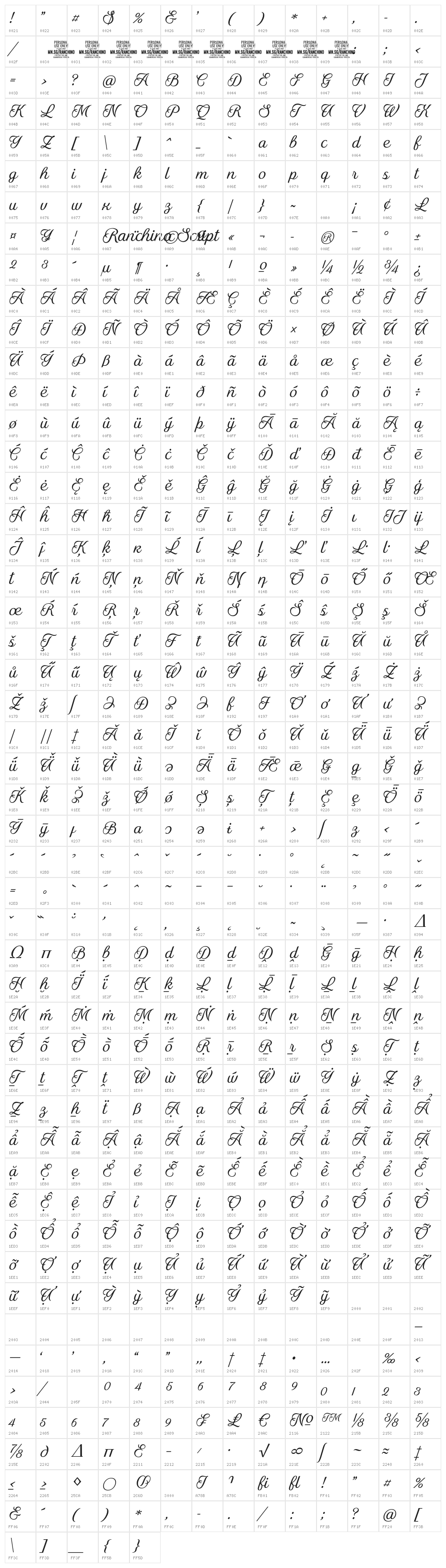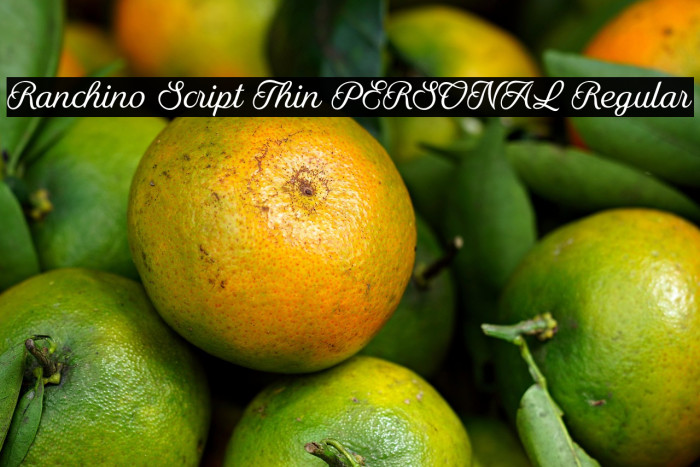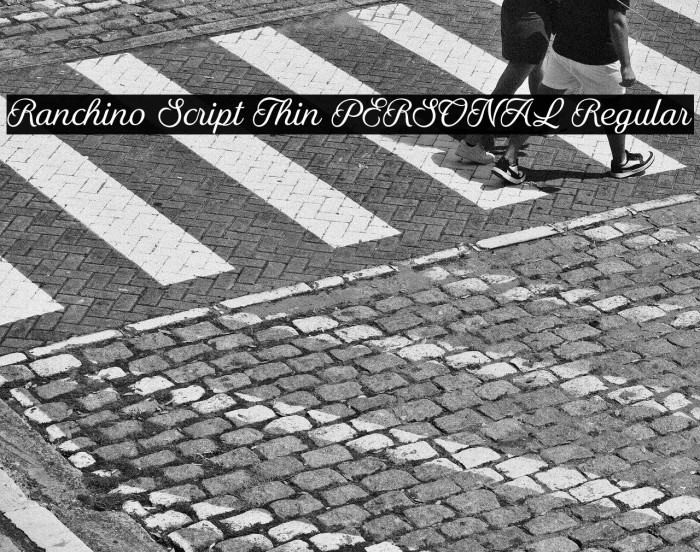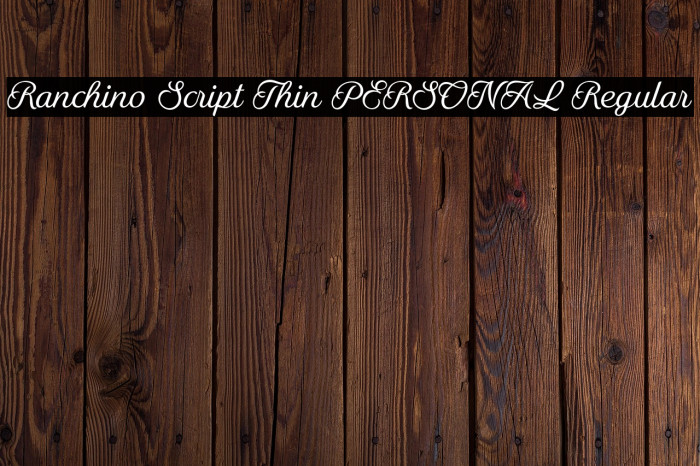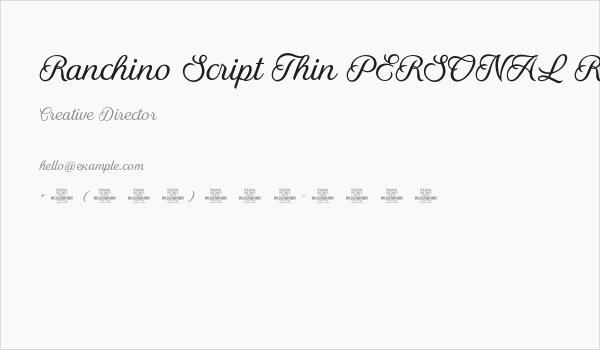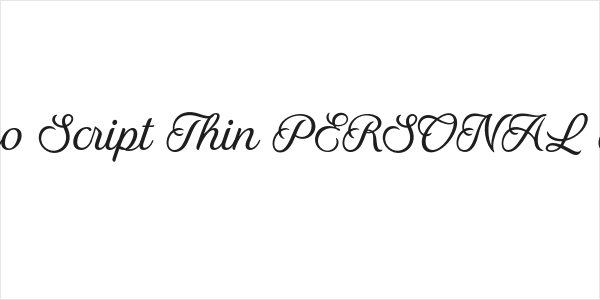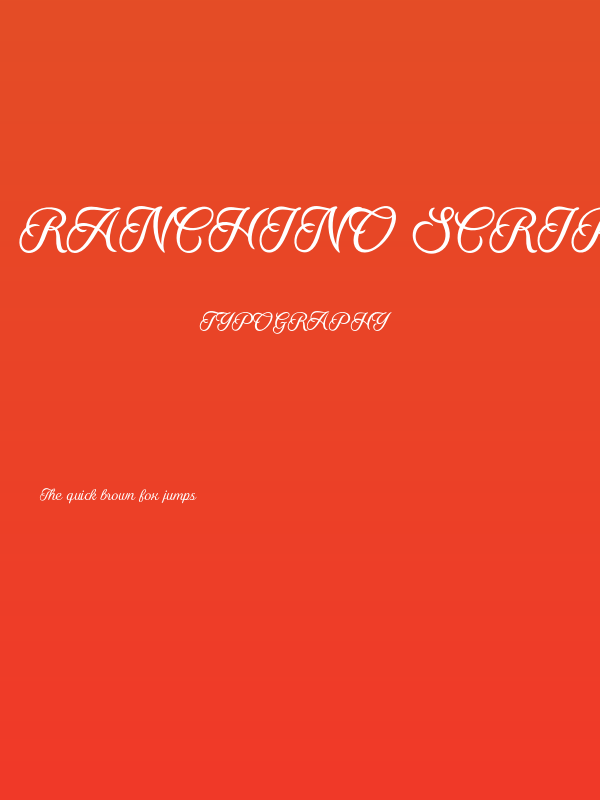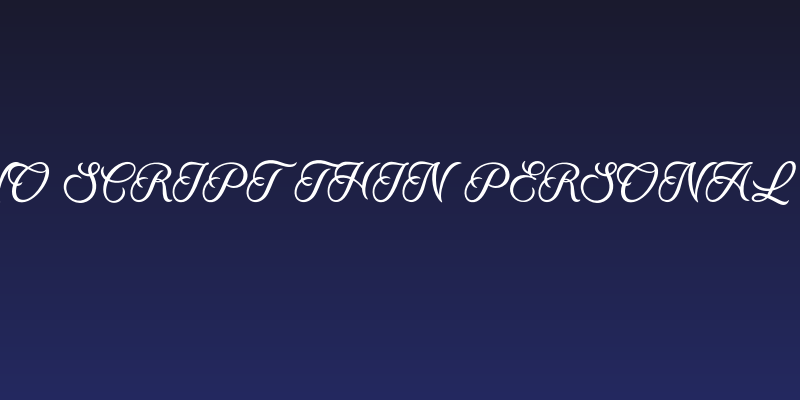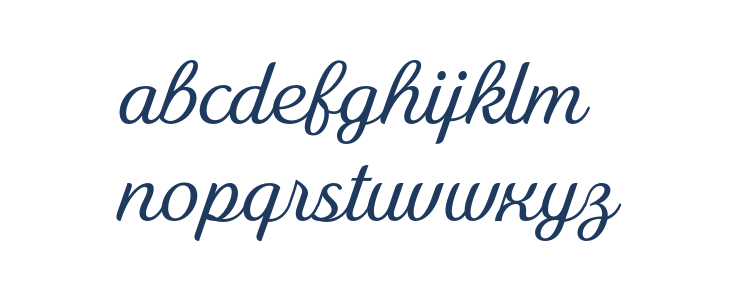
Ranchino Script Thin PERSONAL Regular Font
Ranchino Script Thin PERSONAL Regular Description
This elegant script font features a flowing, cursive style with delicate, thin strokes that convey a sense of sophistication and grace. The uppercase letters are ornate and decorative, with intricate loops and flourishes that add a touch of elegance. The lowercase letters maintain a consistent flow, enhancing readability while preserving the font's artistic flair. The numerals and special characters are designed to complement the overall aesthetic, ensuring a cohesive look across all text elements. This font is perfect for projects that require a touch of class and refinement.